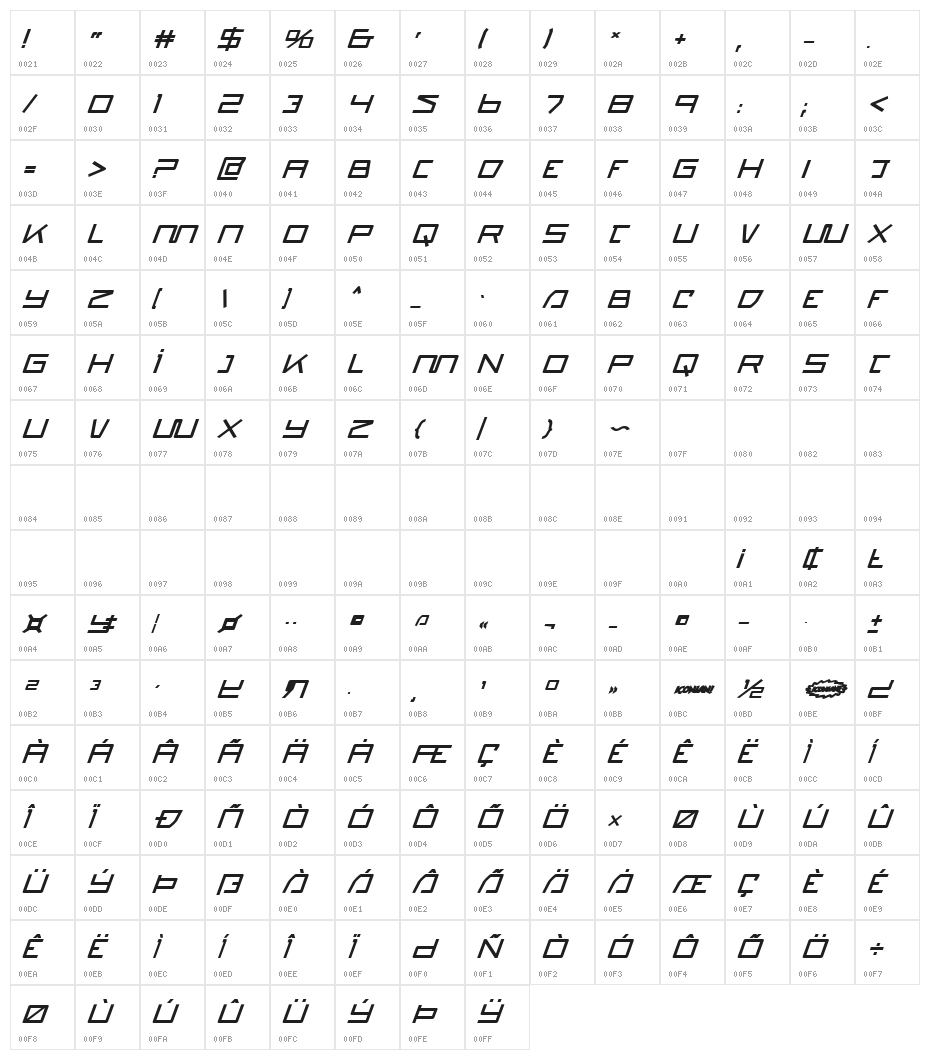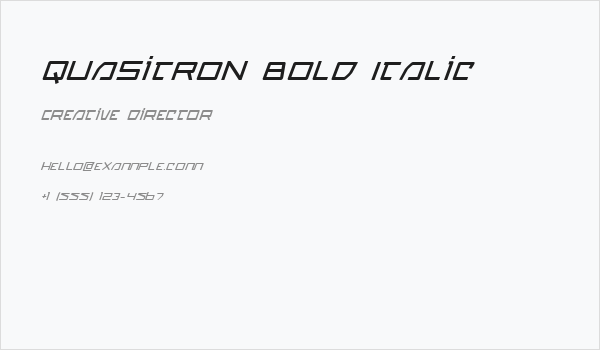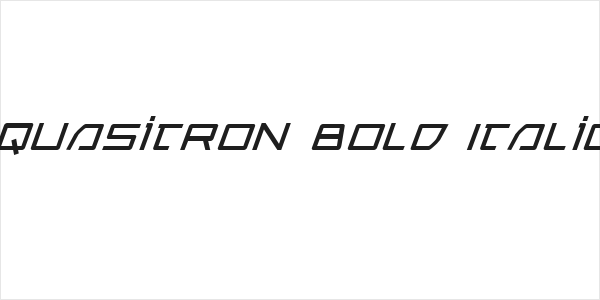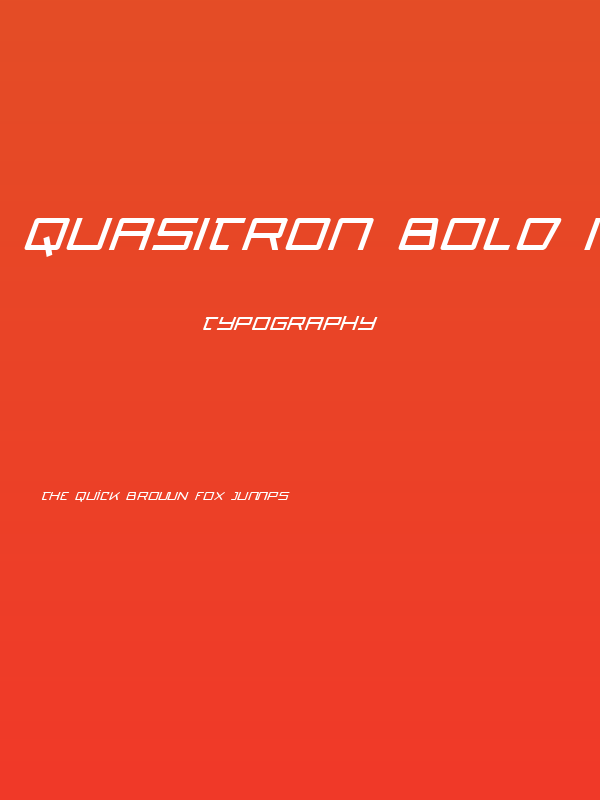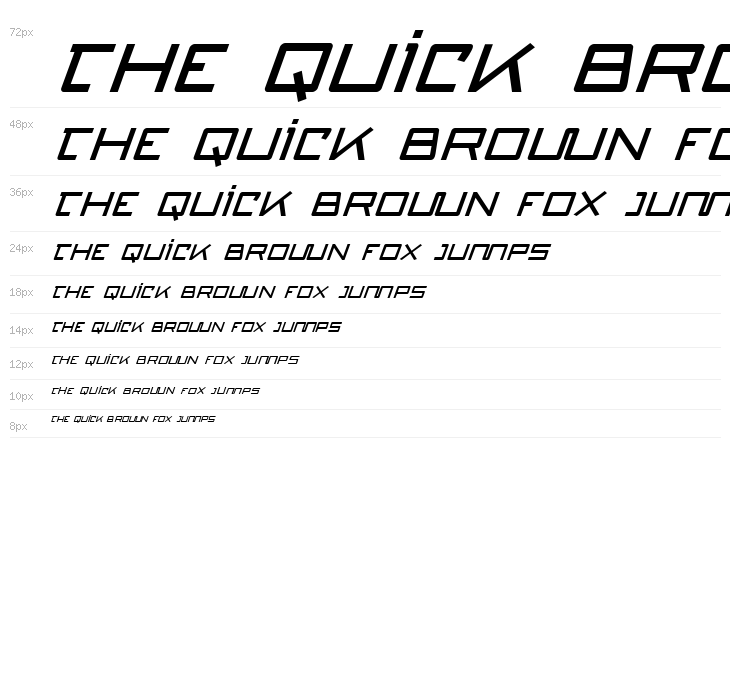
Quasitron Bold Italic Font
Quasitron Bold Italic Description
This font features a futuristic and angular design, characterized by its bold and italicized style. The letters are slanted, giving a sense of motion and speed, which is enhanced by the sharp, geometric edges. The uppercase and lowercase letters maintain a consistent style, with a uniform stroke width that adds to its modern appeal. The numerals and special characters follow the same design principles, ensuring a cohesive look across all elements. This font is ideal for projects that require a dynamic and contemporary aesthetic.
Proposed ProjectsIdeal for technology branding, sci-fi movie posters, video game titles, and modern advertising.